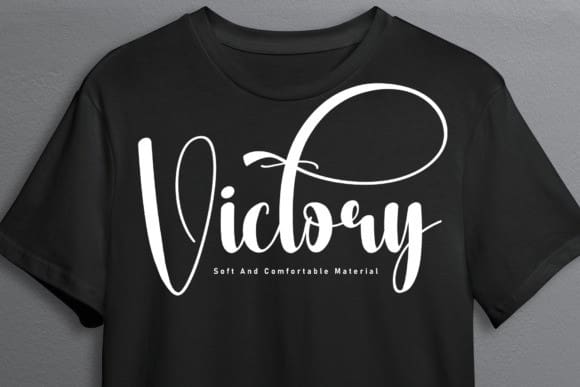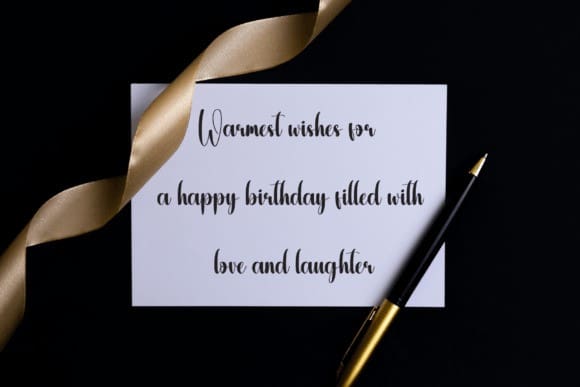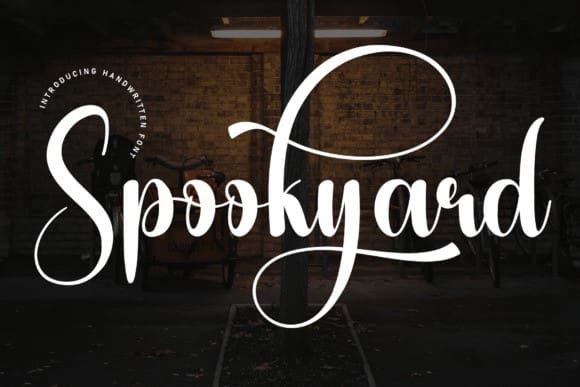
Spookyard Script Font
Spookyard Script Font is a sweet and friendly handwritten font. Its natural and unique style makes it incredibly fitting to a large pool of designs. The only limit is your imagination!